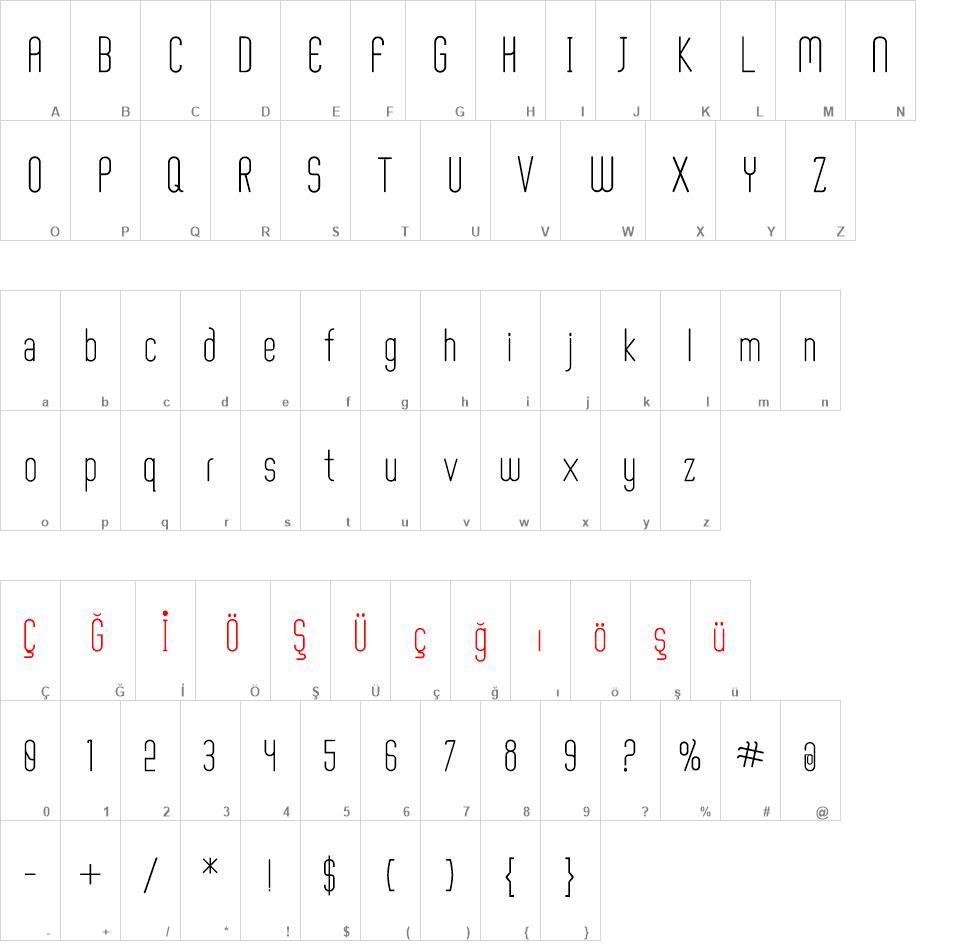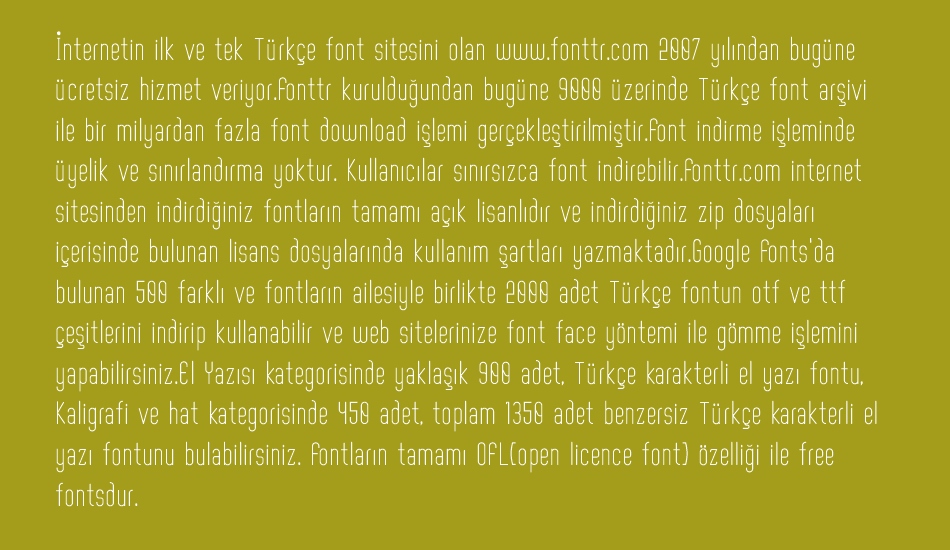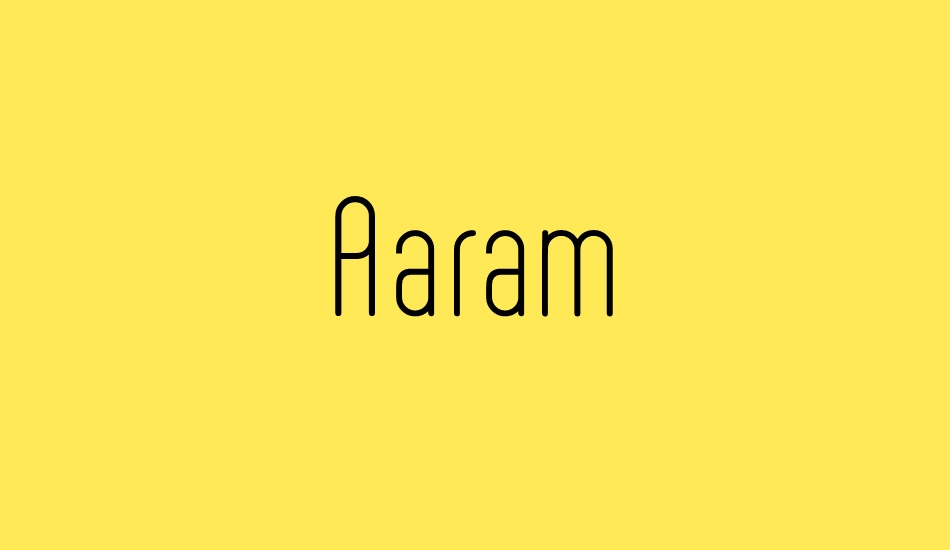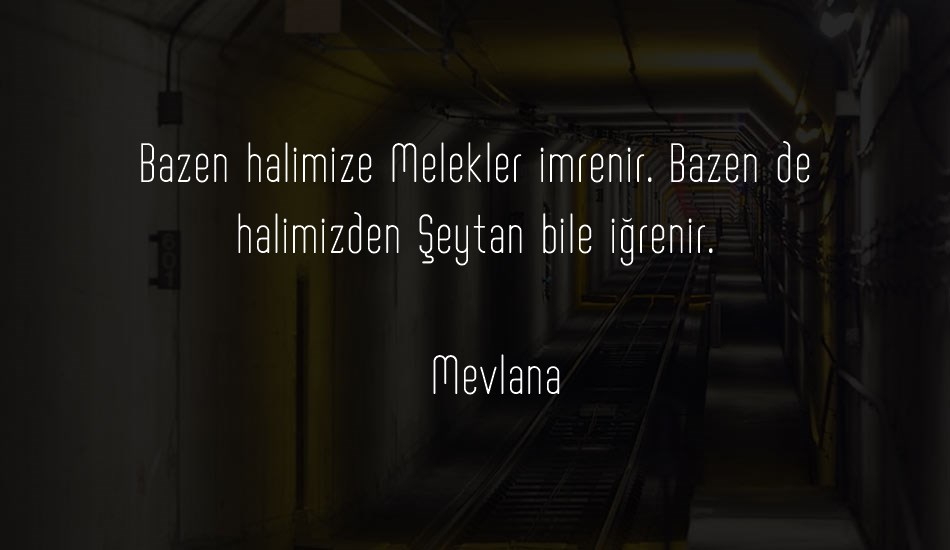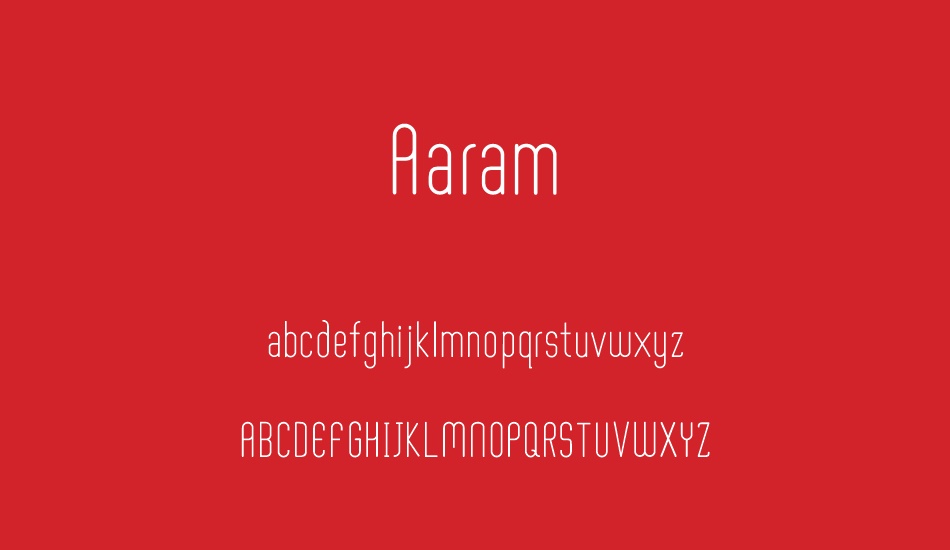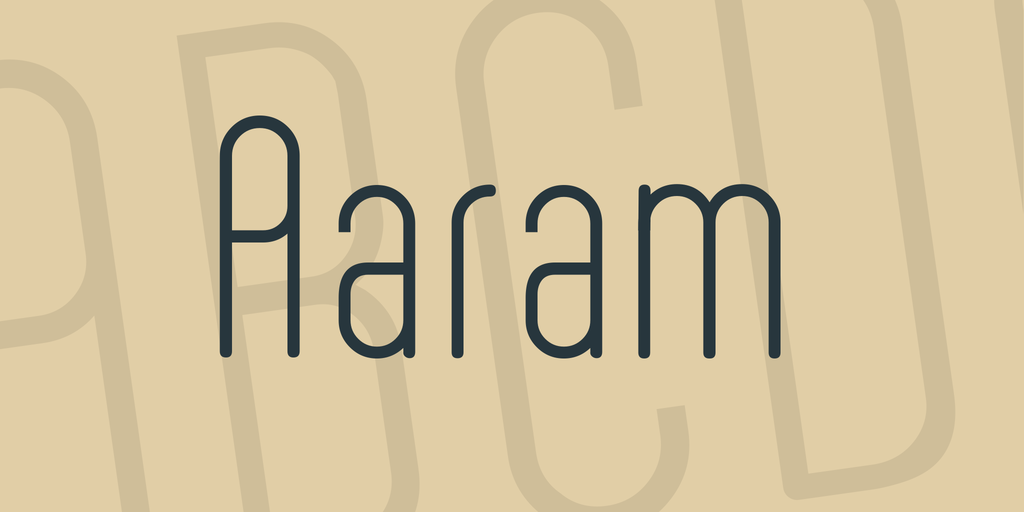
Aaram Font font
Aaram Font
Aaram is a unique font family, that comes in six gorgeous styles to choose from. Aaram primarily designed for screen but it'll look fantastic in print too.
Fun Fact: Shape of this font, derived from the different radius in a circle & curves in a rectangle, thus Aaram is a Tamil word, which literally means radius.